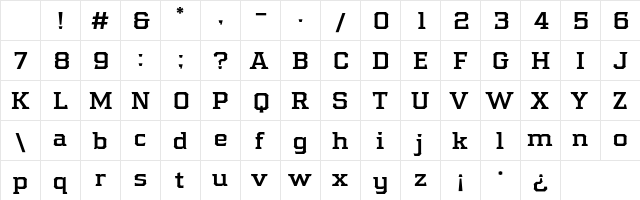
Samton is a composed and adaptable typeface that performs quietly and consistently across a wide range of design contexts. Its bold stroke weight gives it real presence on the page.